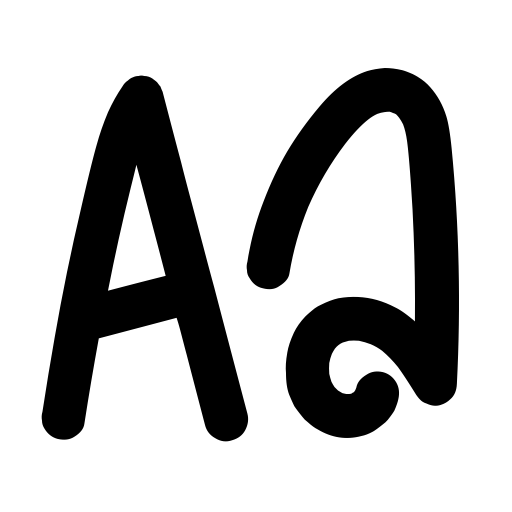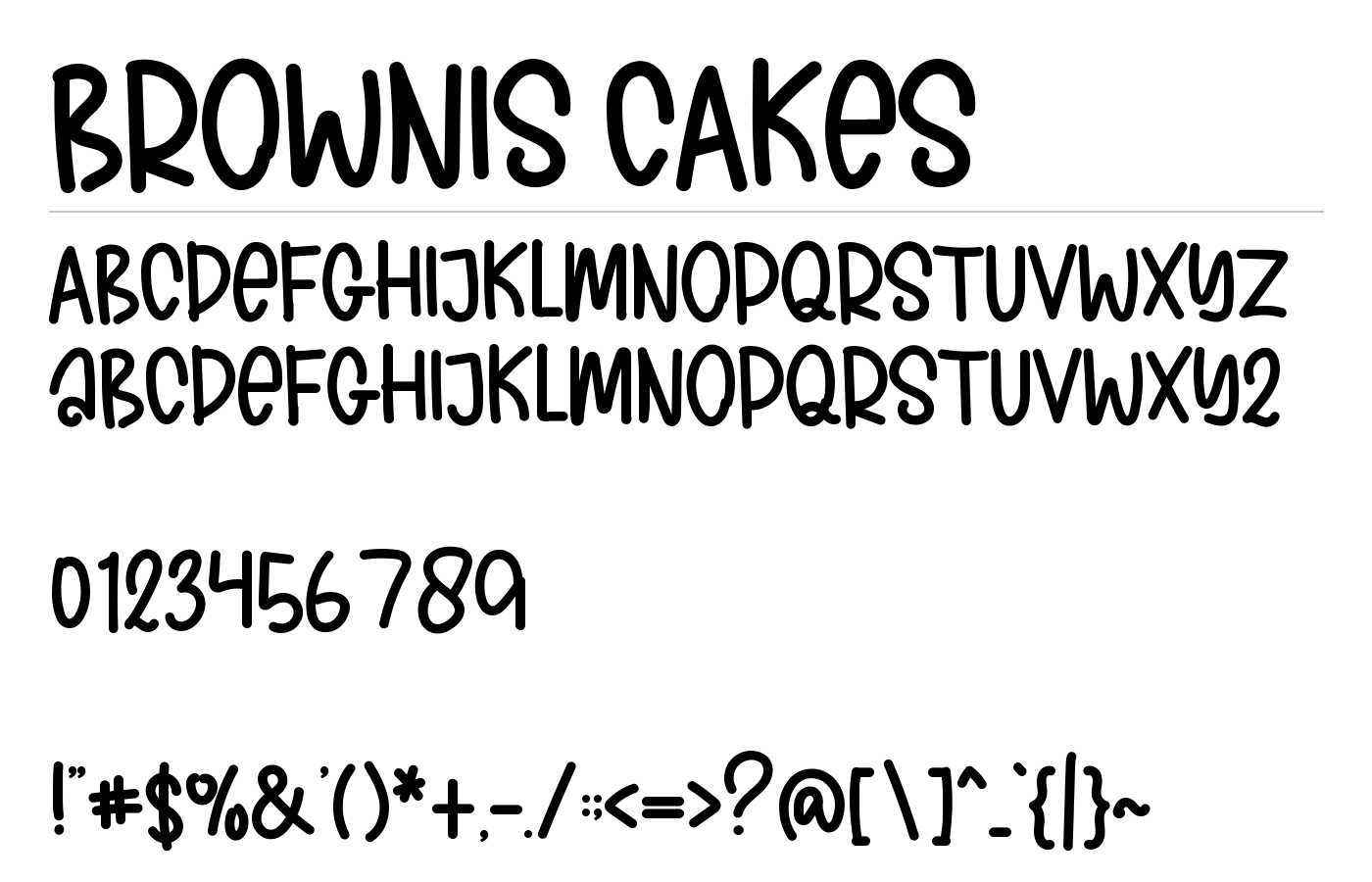
Brownis Cakes is a playful and friendly handwritten sans serif font with a casual, rounded style that evokes warmth and approachability. Its irregular letterforms and consistent stroke weight give it a fun, informal feel, making it perfect for kids' products, casual branding, and creative projects that seek a personal, welcoming touch. This font works well for headlines, logos, and packaging where a cheerful and easygoing personality is desired.
BROWNIS CAKES Font